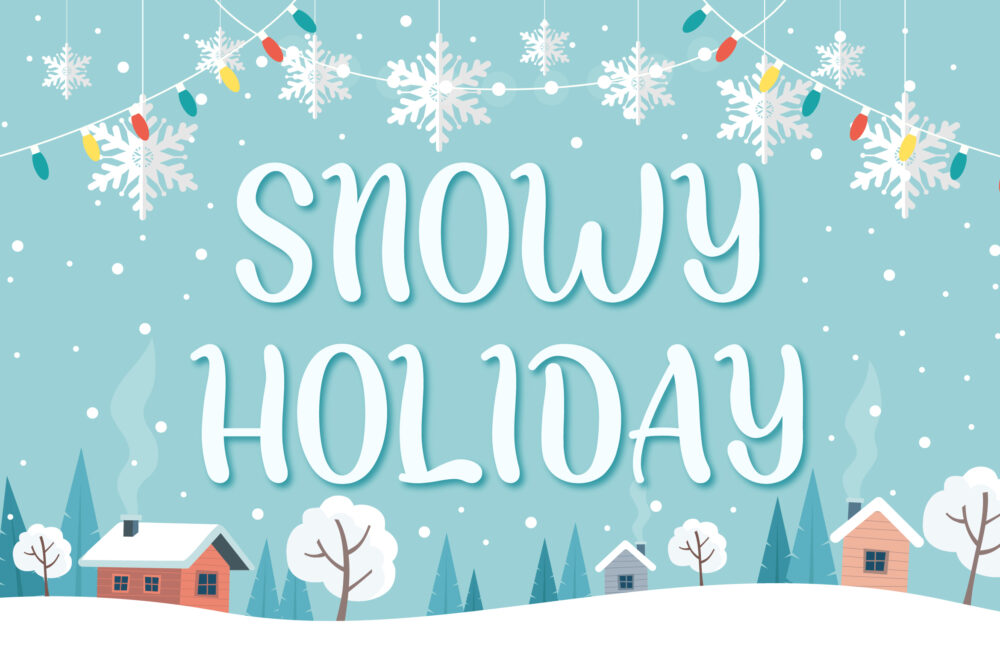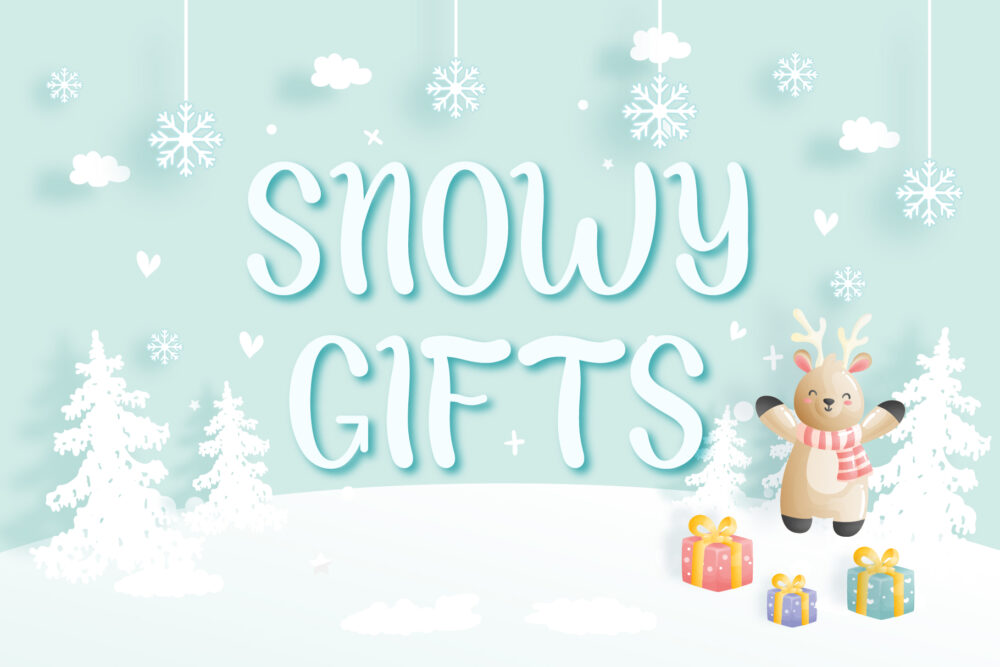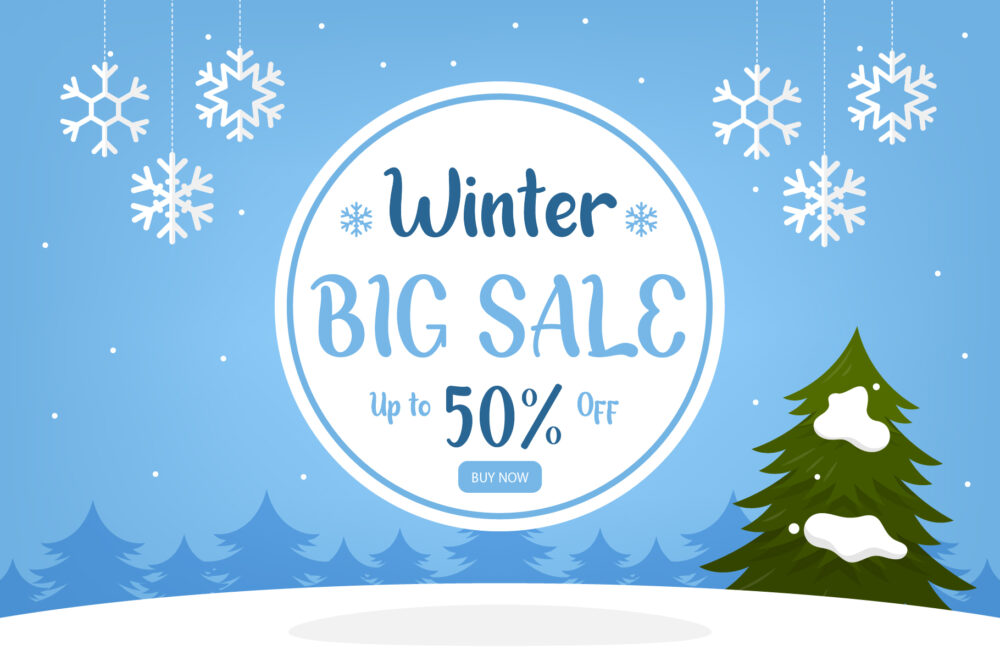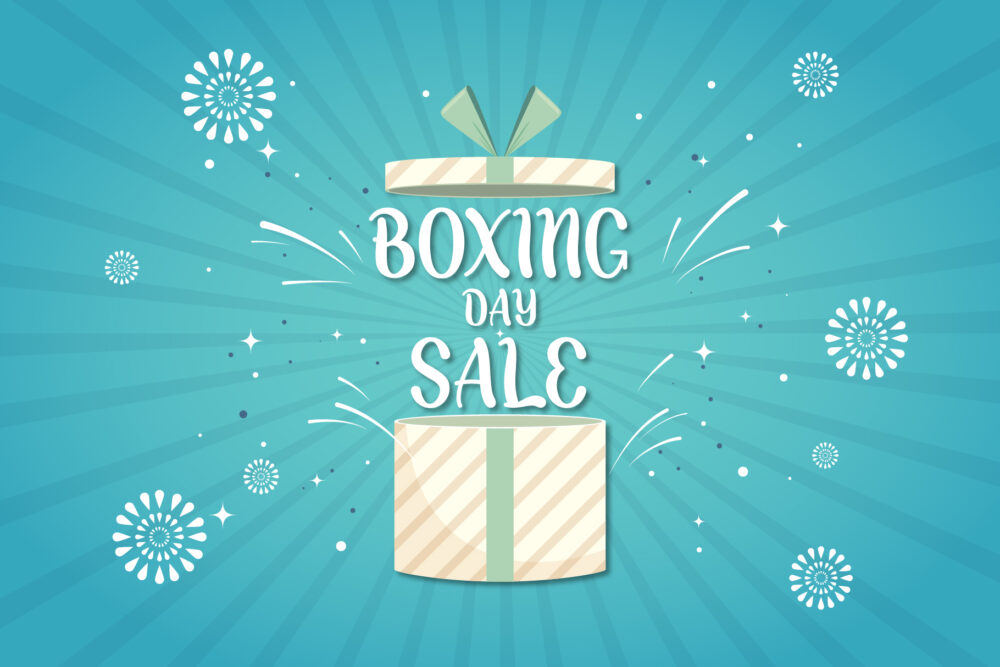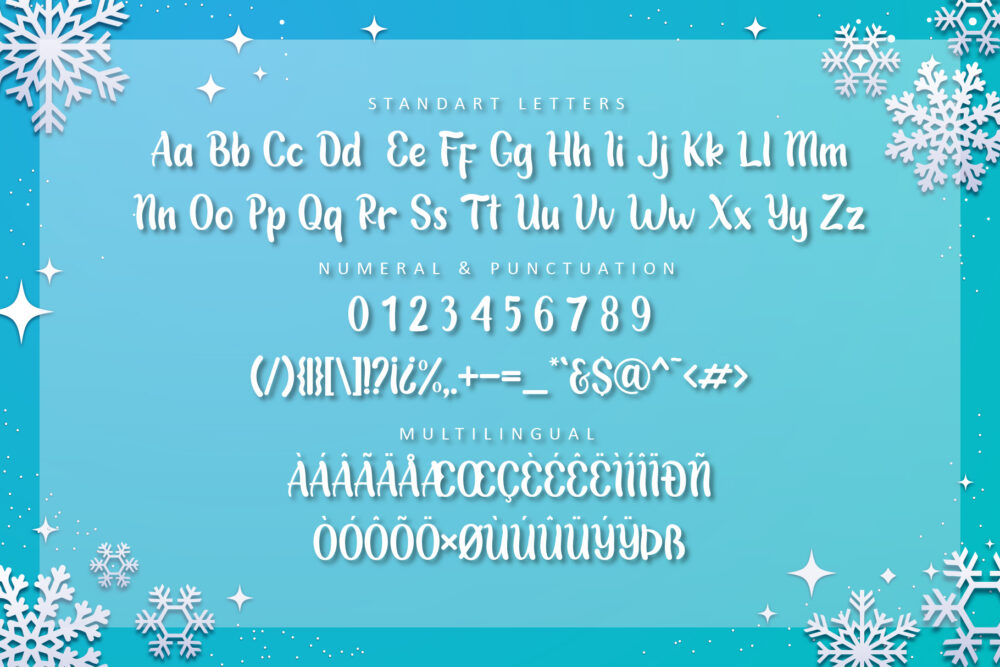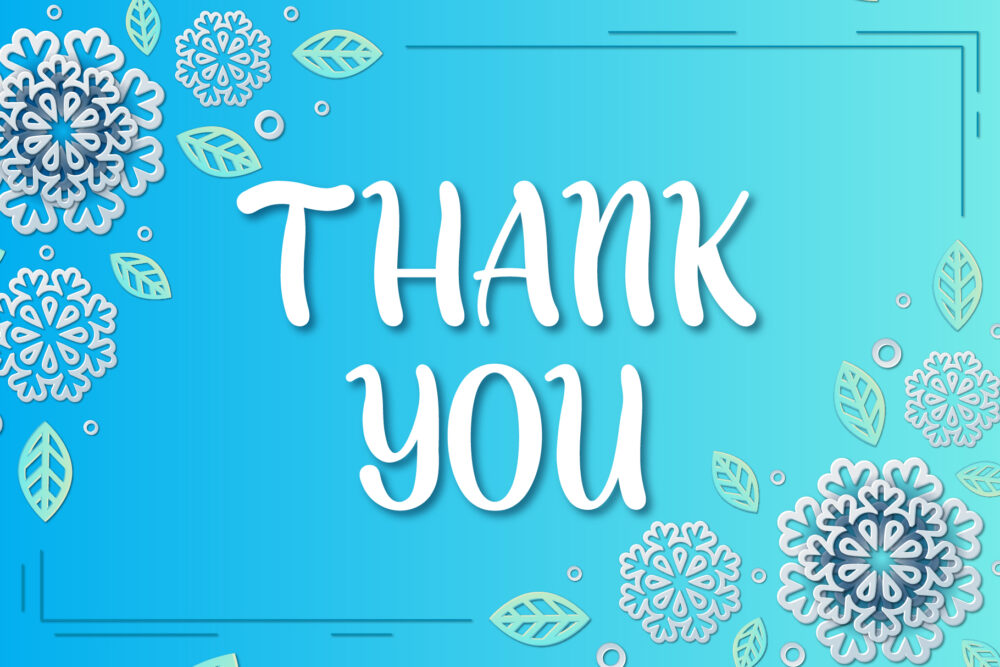
Snowy Holiday is a beautiful display font for a variety of designs. Snowy Holiday can be used for products such as handcraft, product packaging, quotes, product design, craftsmen, lanels, photography, watermarks, logos & branding. Everything can be accessed using software that supports Opentype, such as Adobe Indesign, Adobe CS IIustrator, Adobe Photoshop CC, and Corel Draw.